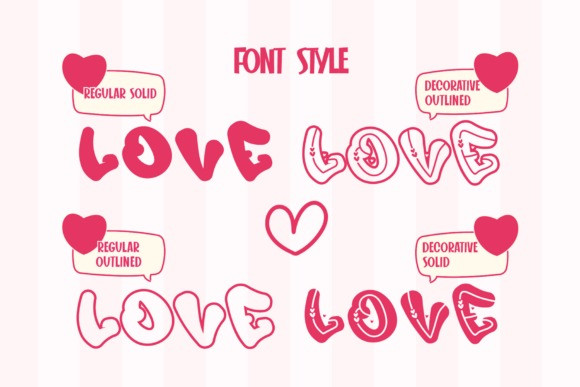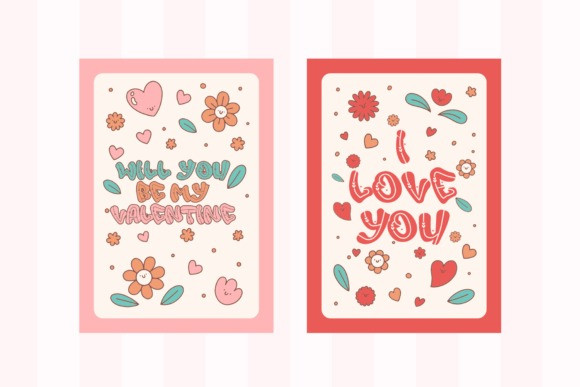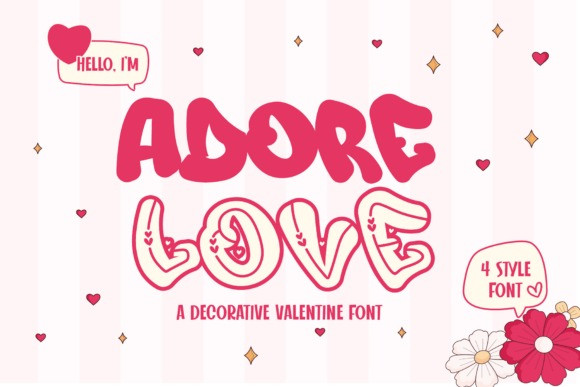
Adore Love Font is a delightful decorative font designed to capture the spirit of love and romance. Featuring four versatile styles are solid and outline without love decorations, and solid and outline with charming love-themed accents. This font is perfect for spreading warmth and affection. Its chubby, rounded characters exude a playful and adorable personality, making it an excellent choice for a variety of creative projects.
Whether you’re designing Valentine’s Day cards, wedding invitations, romantic quotes, heartwarming social media posts, or any love-themed artwork, Adore Love brings a sweet and cheerful vibe to your designs. Its versatile styles allow you to mix and match elements for unique and eye-catching compositions, adding just the right amount of charm and elegance. Let Adore Love be the highlight of your next project and infuse your work with love and creativity!